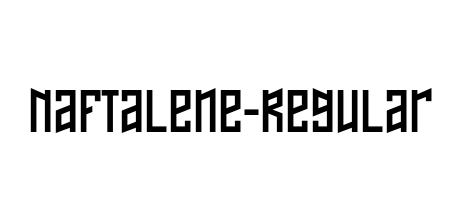
Naftalene
By Typodermic Fonts
Naftalene-Regular boasts a bold, geometric sans-serif design. Its straight lines and sharp corners create a strong, almost industrial feel. The letterforms are tightly spaced, contributing to a sense of compactness and density. It's a font that commands attention, conveying a message with both power and precision.